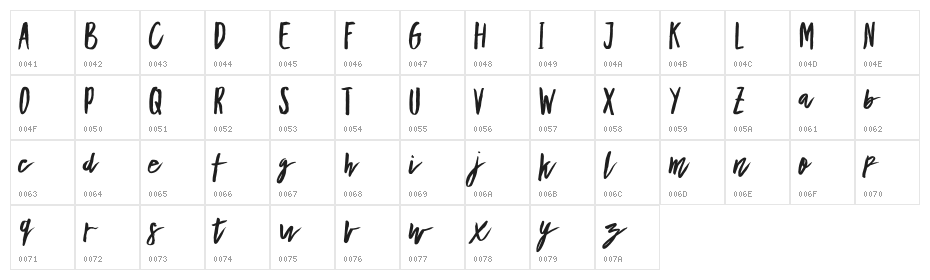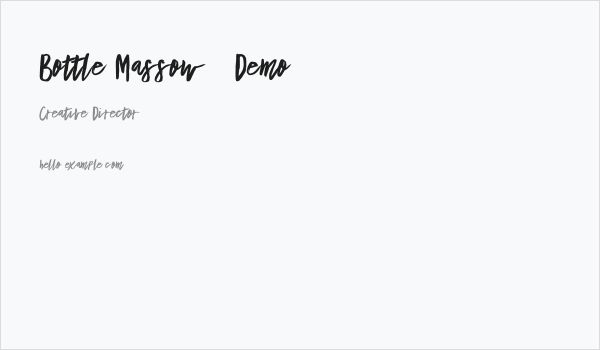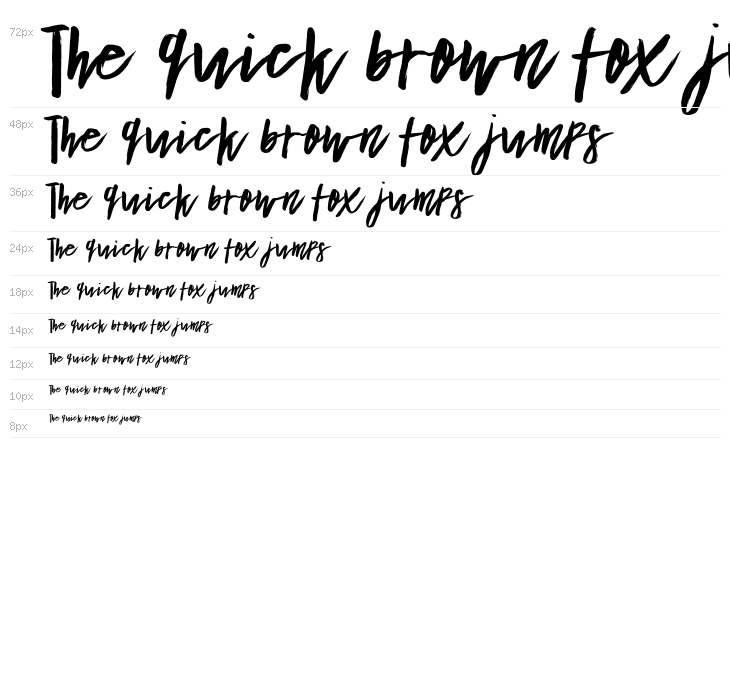
Bottle Massow - Demo Font
Bottle Massow - Demo Description
This font features a bold, brush-like appearance with a hand-painted aesthetic. The uppercase letters are tall and slightly condensed, while the lowercase letters maintain a fluid, cursive style. The strokes are uneven, adding to the organic and dynamic feel of the font. The characters have a natural flow, with some letters connecting seamlessly, enhancing the handwritten effect. The overall impression is artistic and expressive, making it suitable for creative and informal designs.
| Proposed Projects | Ideal for branding, packaging, posters, and invitations where a creative and personal touch is desired. |